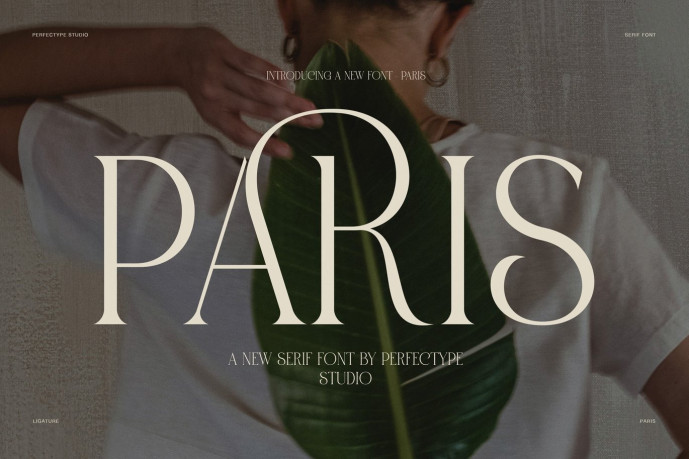
Paris Elegant Serif Font
Paris is an elegant serif font that brings a refined and modern luxury feel to any design project. Moreover, it combines classic serif structure with stylish contemporary details. As a result, it creates a strong visual identity that feels both timeless and modern. In addition, the font shows high contrast strokes, soft curves, and carefully balanced spacing. Therefore, it is perfect for designers who want clean and premium typography.
Furthermore, Paris is designed for fashion, editorial, and branding use. It works very well in luxury layouts, especially where elegance is important. Meanwhile, its letterforms are crafted with attention to detail, so each character feels smooth and expressive. Because of this, the font is easy to read while still looking artistic. In addition, it includes beautiful ligatures and alternates that allow more creative typography combinations. Consequently, designers can build unique wordmarks and stylish compositions with ease.
Moreover, Paris fits many creative needs. For example, it works perfectly in magazine headlines, wedding invitations, logos, and social media branding. At the same time, it also performs well in packaging design and modern advertising. Therefore, it is a flexible font for both print and digital use. In addition, the elegant structure helps improve visual hierarchy in any layout.
Key features include:
Elegant high-contrast serif style
Stylish ligatures and alternates
Fashion and editorial look
Luxury branding design support
Clean and modern letterforms
Strong readability with artistic detail
Furthermore, Paris is built to enhance visual storytelling. Because of its refined design, it gives every project a sense of sophistication. Meanwhile, it maintains a soft and emotional tone that connects well with modern audiences. As a result, it becomes a powerful choice for premium branding projects. In addition, the font adapts well across different platforms. It stays consistent in both digital screens and printed materials. Therefore, designers can rely on it for professional use. Finally, Paris is ideal for anyone who wants to create elegant, stylish, and high-end visual work with a timeless serif touch.